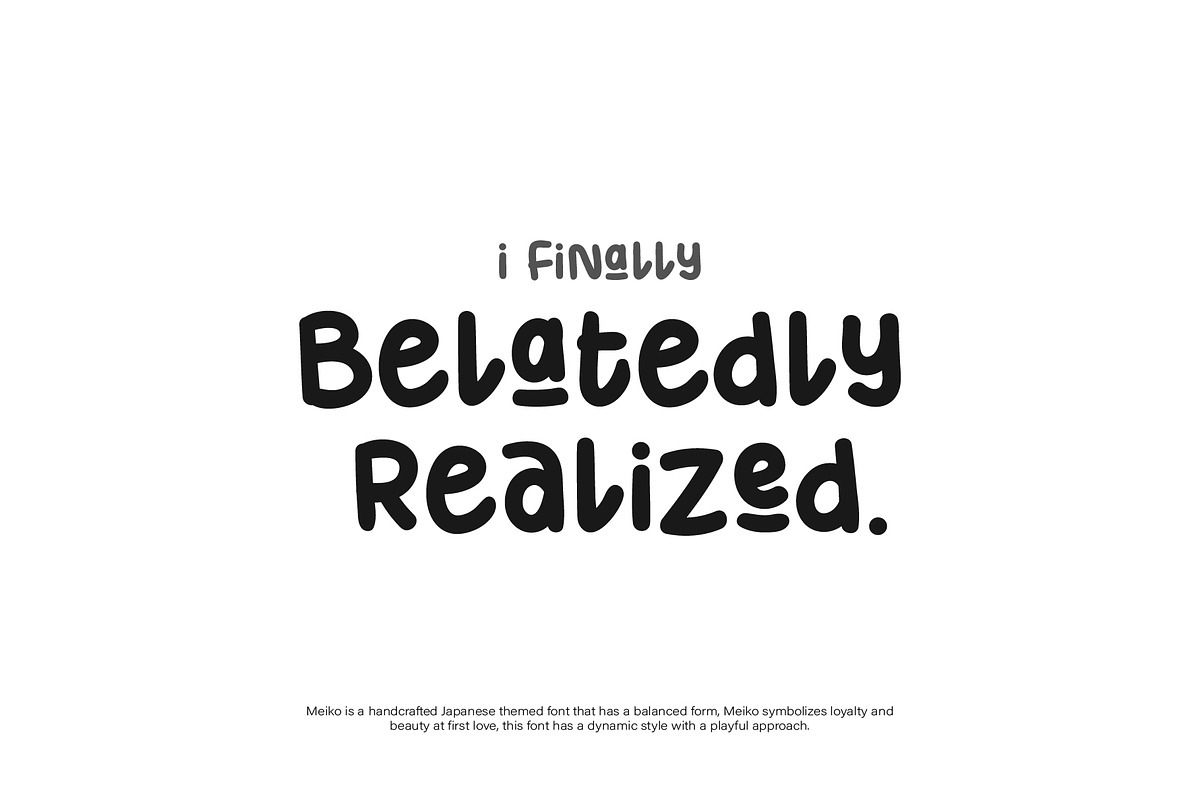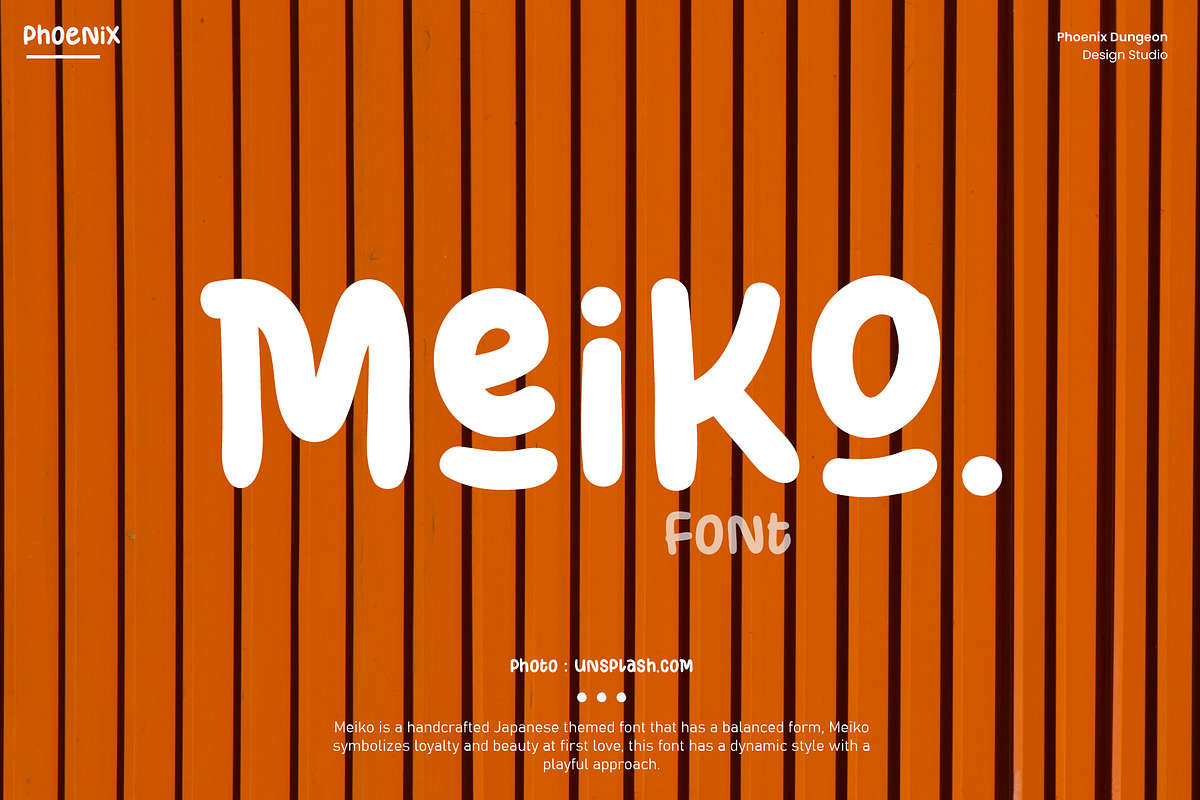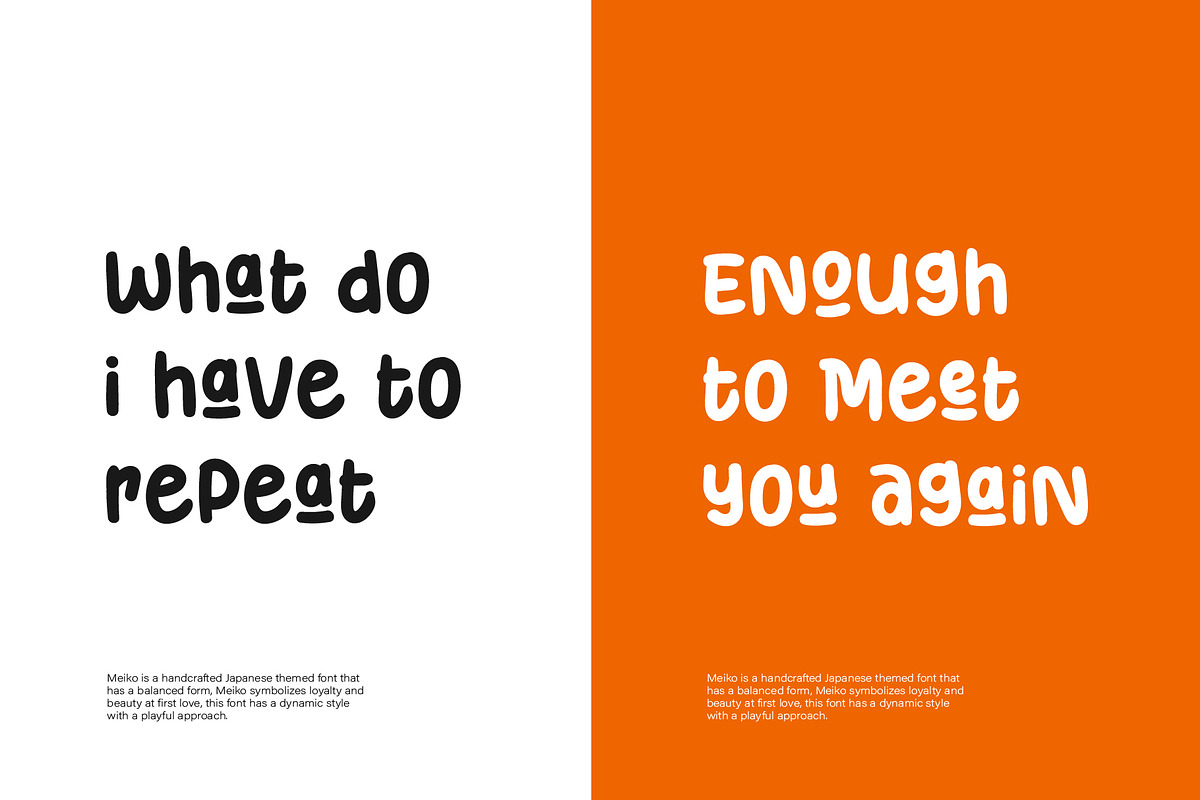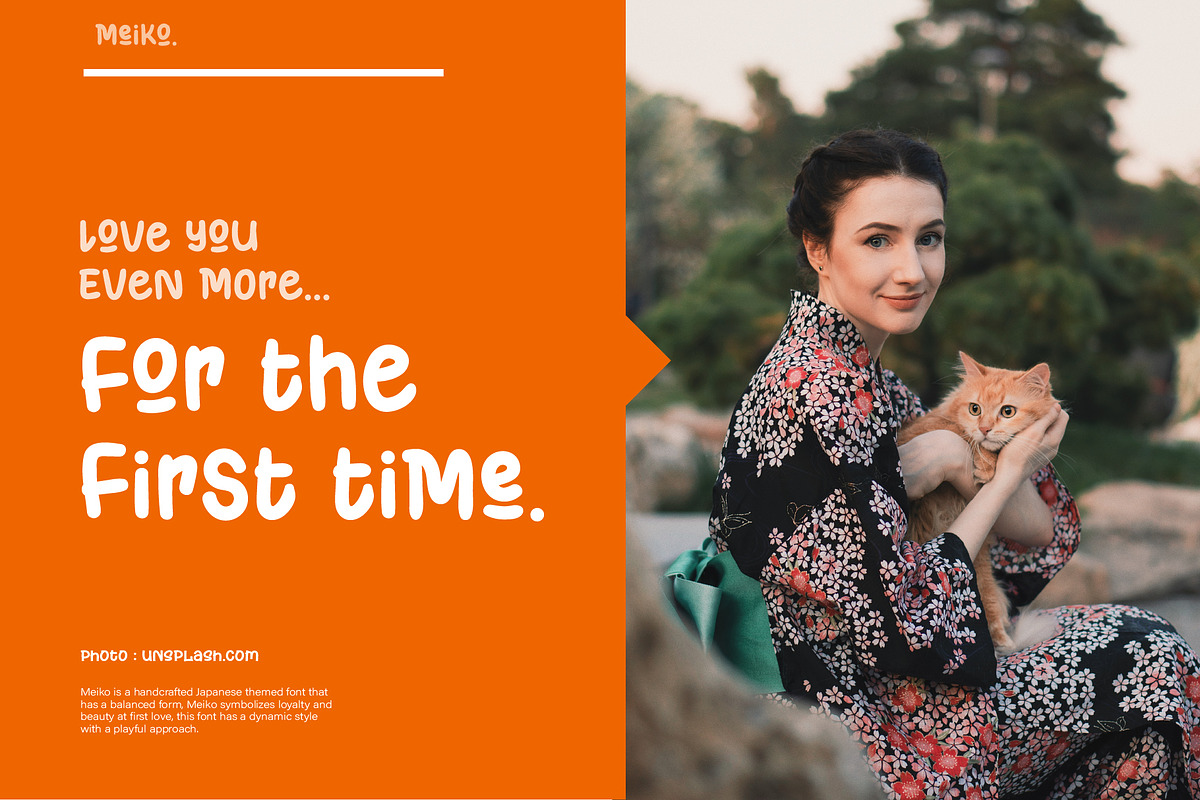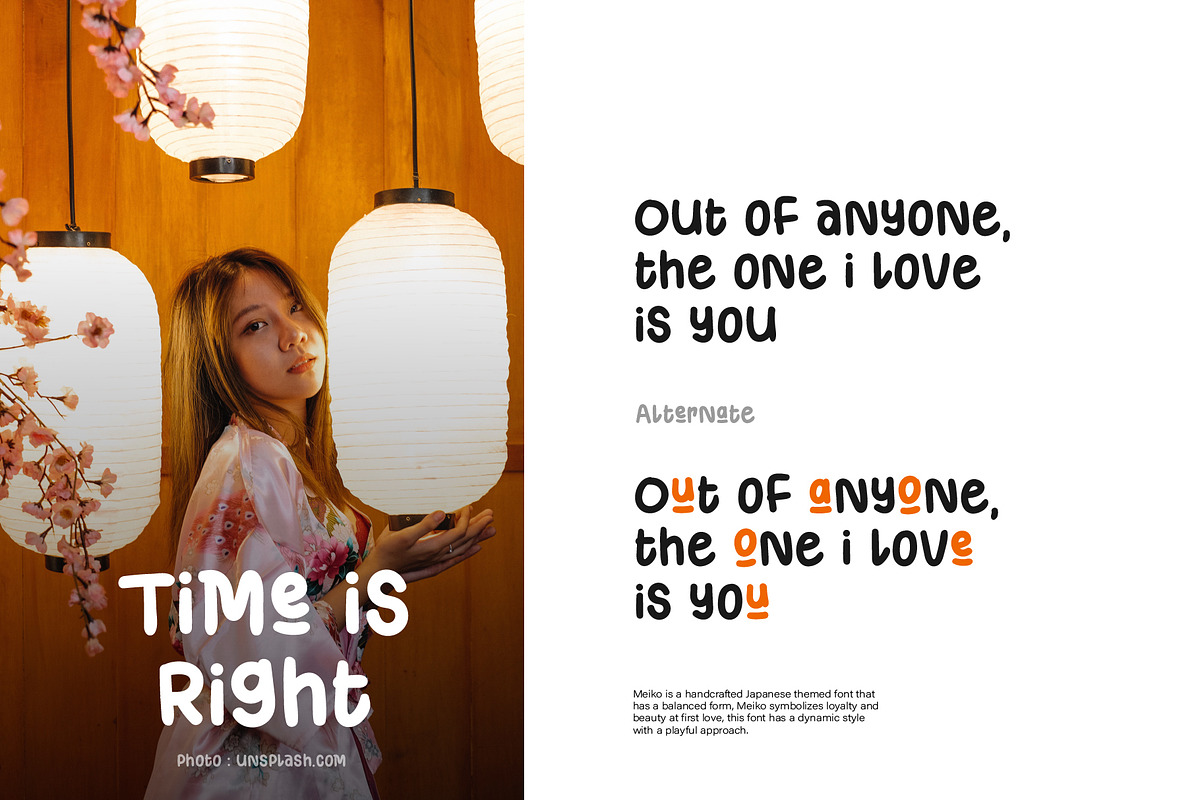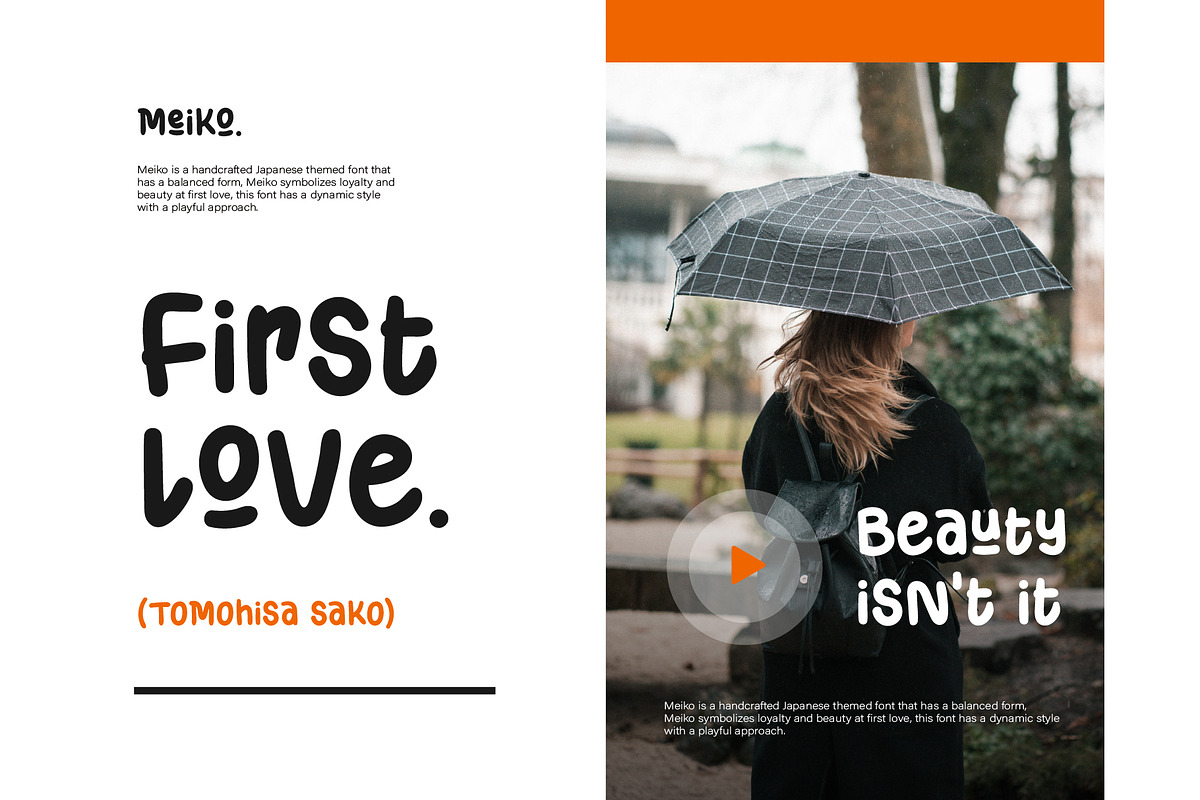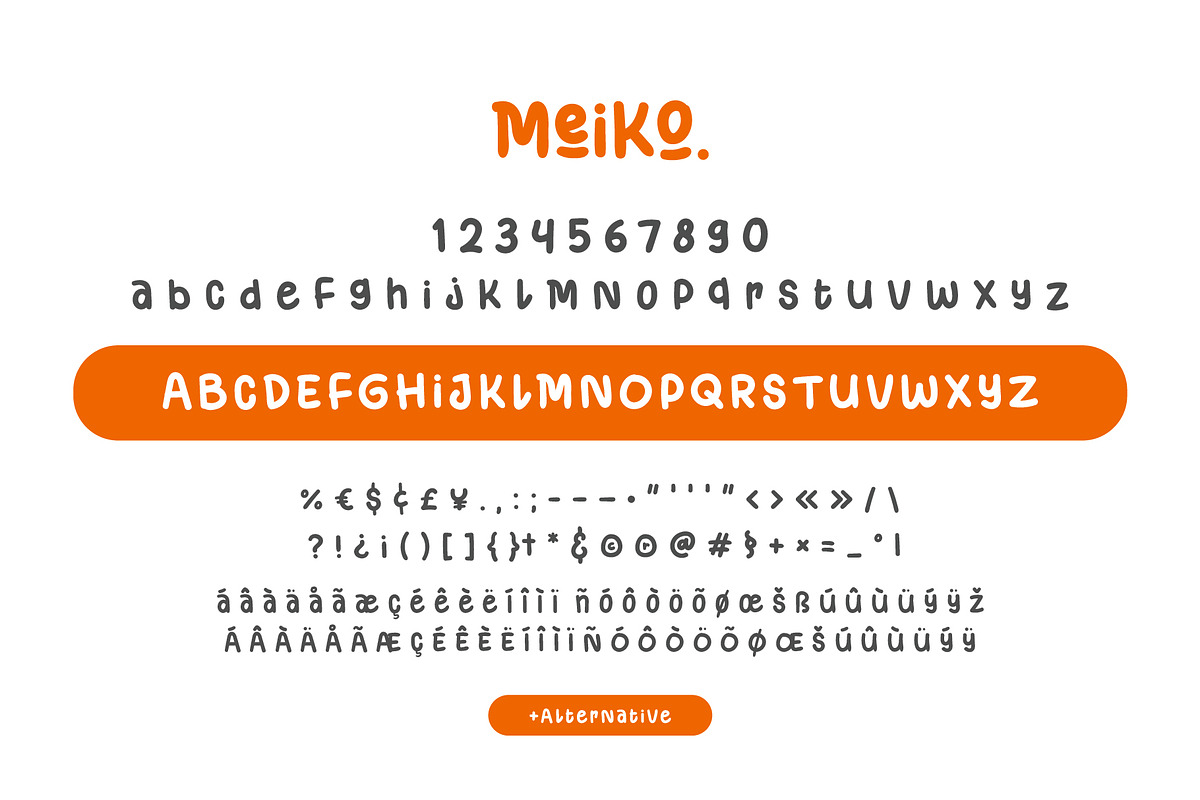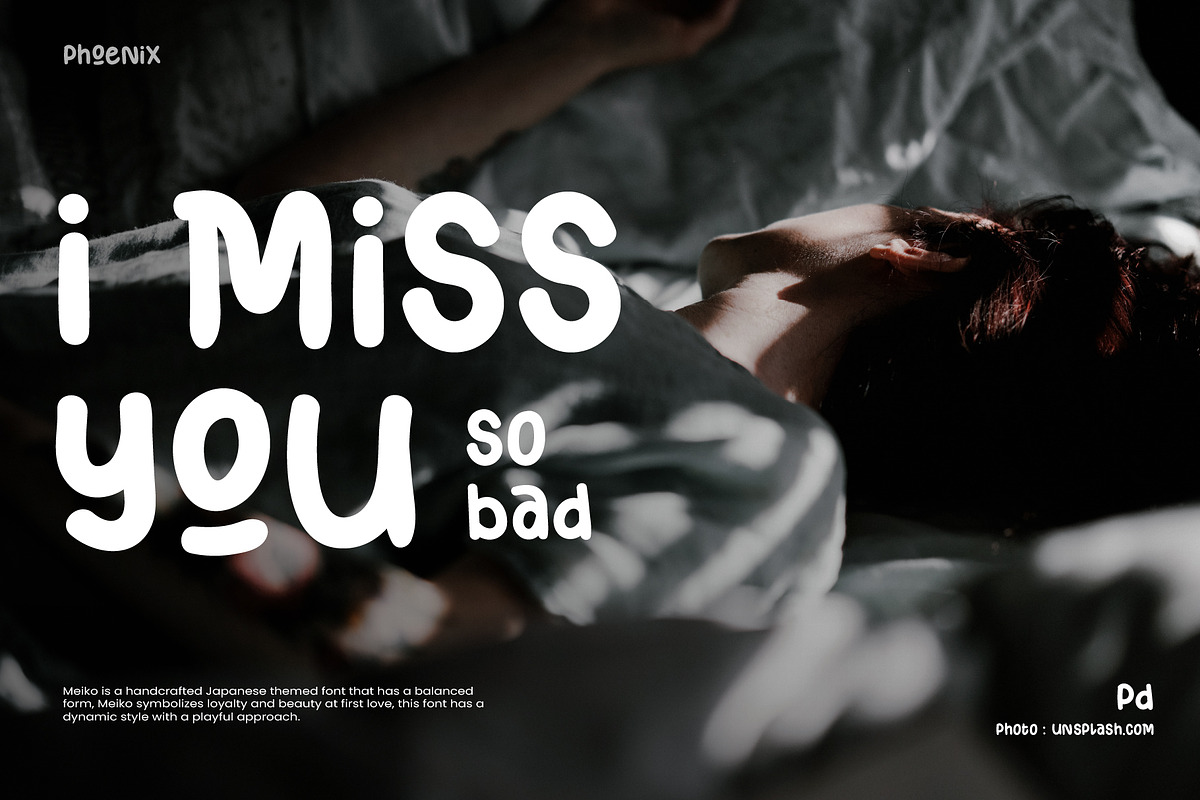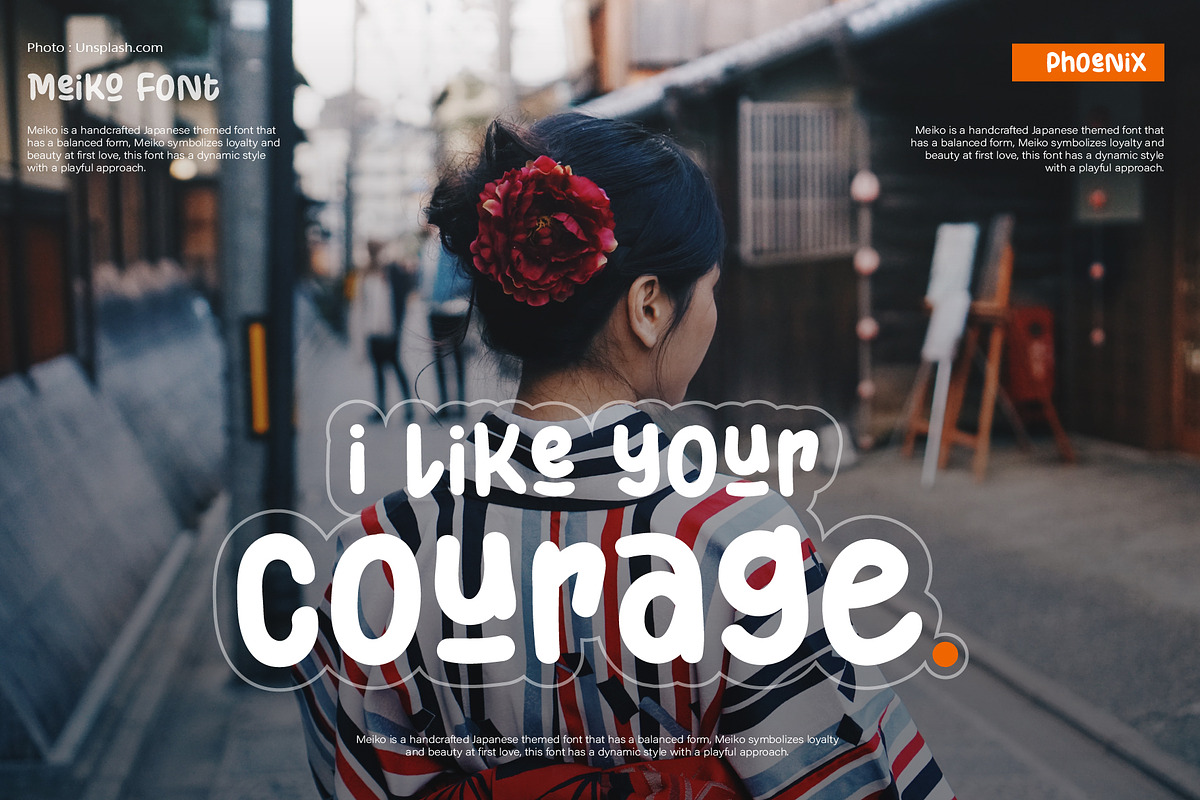
Meiko Font
Meiko is a handcrafted Japanese-themed font that has a balanced form, Meiko symbolizes loyalty and beauty at first love, this font has a dynamic style with a playful approach.